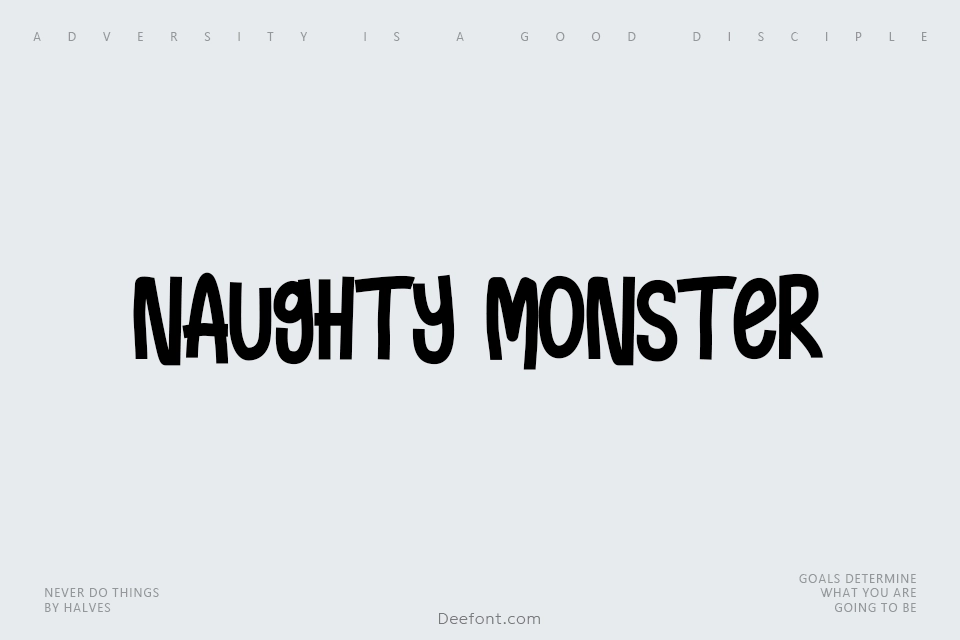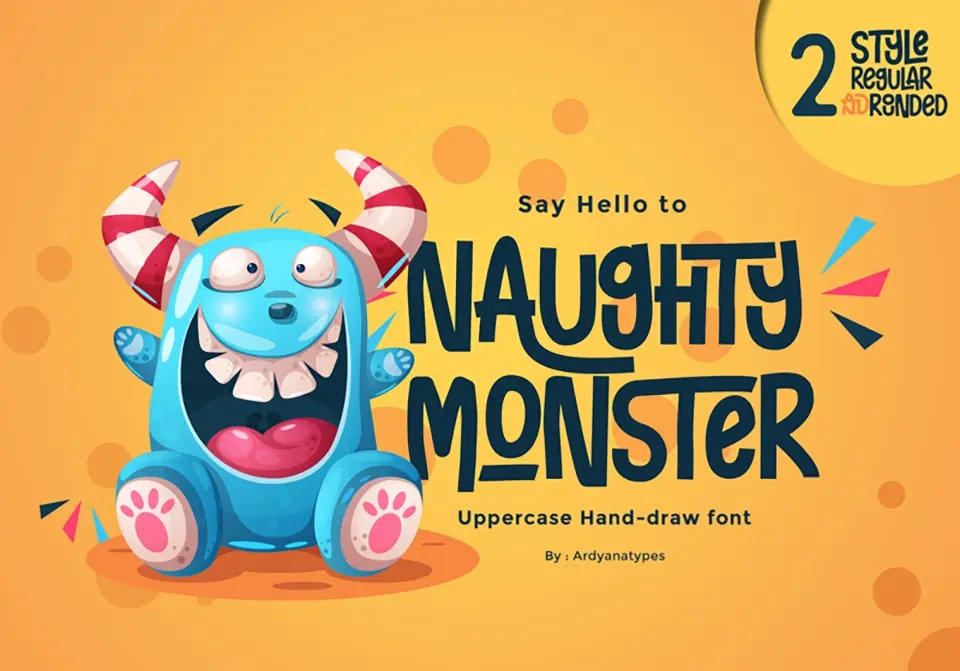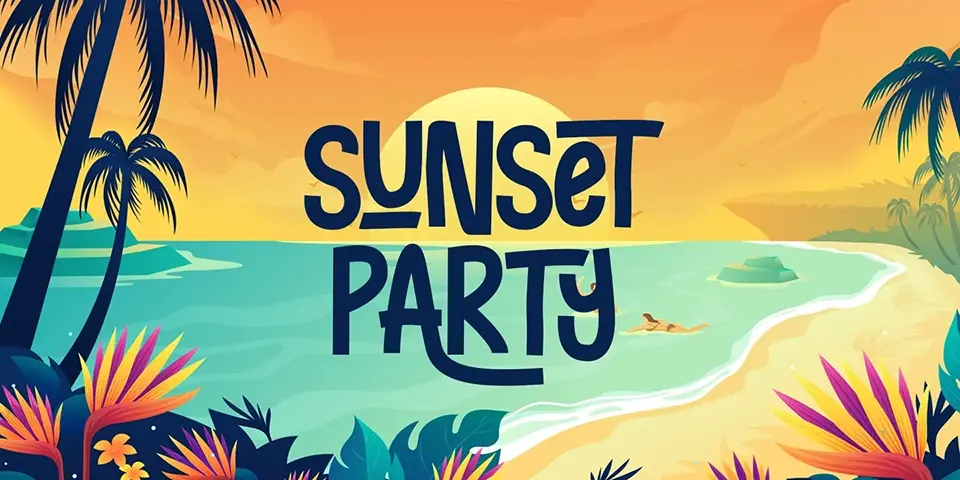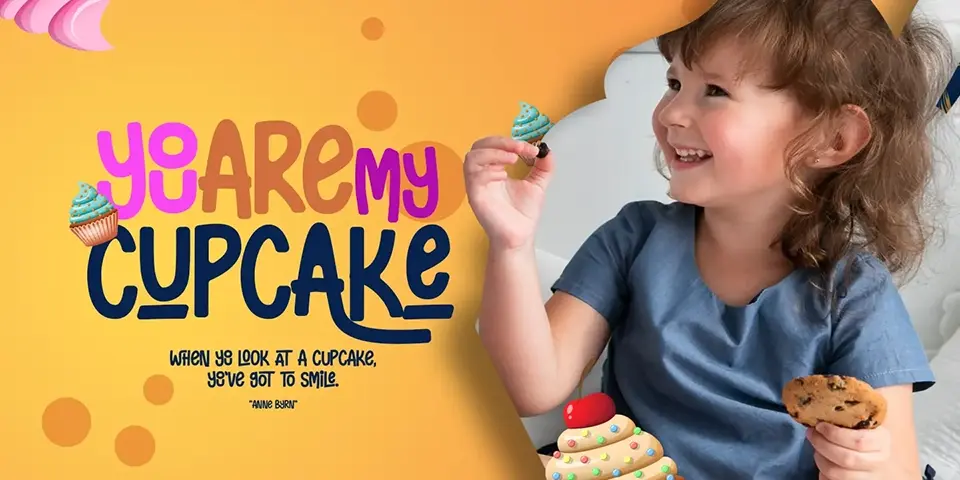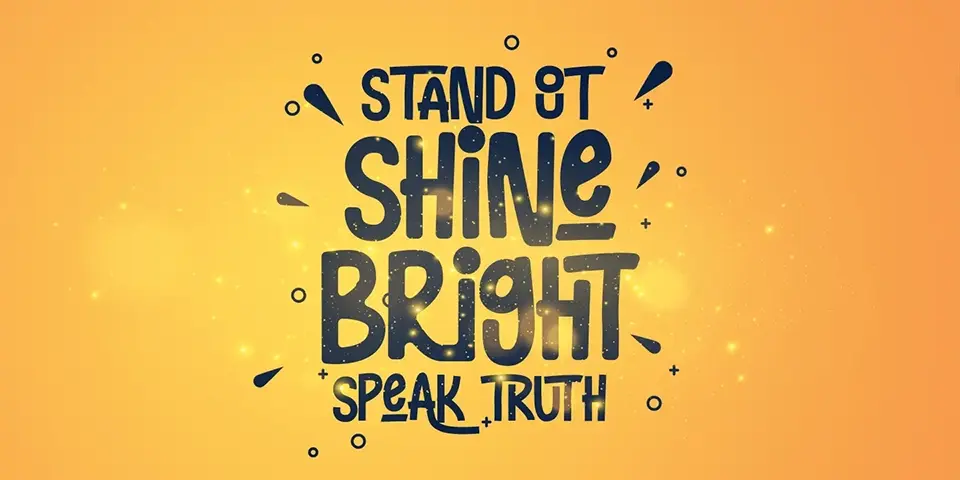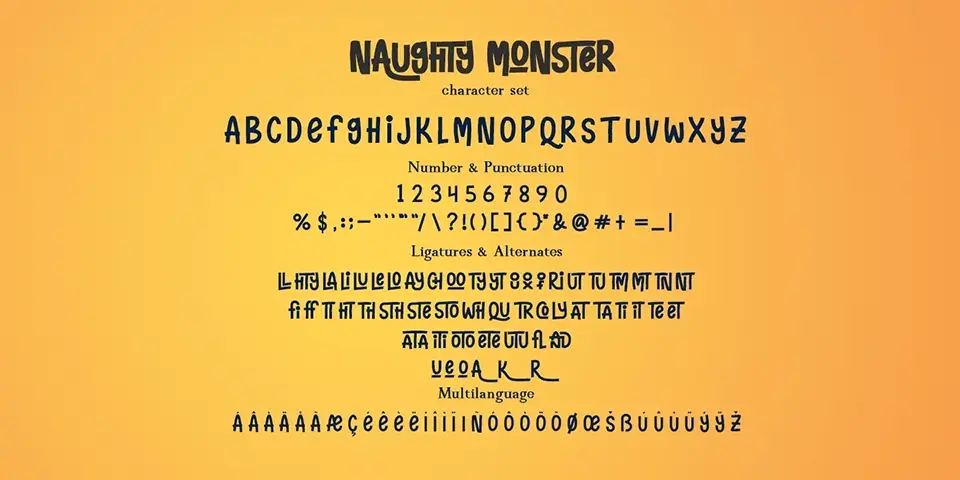
Naughty Monster Font
Naughty Monster is a playful and bold display font featuring a whimsical, hand-drawn style with exaggerated curves and a slightly irregular baseline, giving it a lively and energetic appearance. The font consists of thick, rounded letters with cartoonish flair, perfect for children’s books, playful branding, comic strips, posters, and party invitations. Its unique style makes it stand out and adds personality to any creative design project.